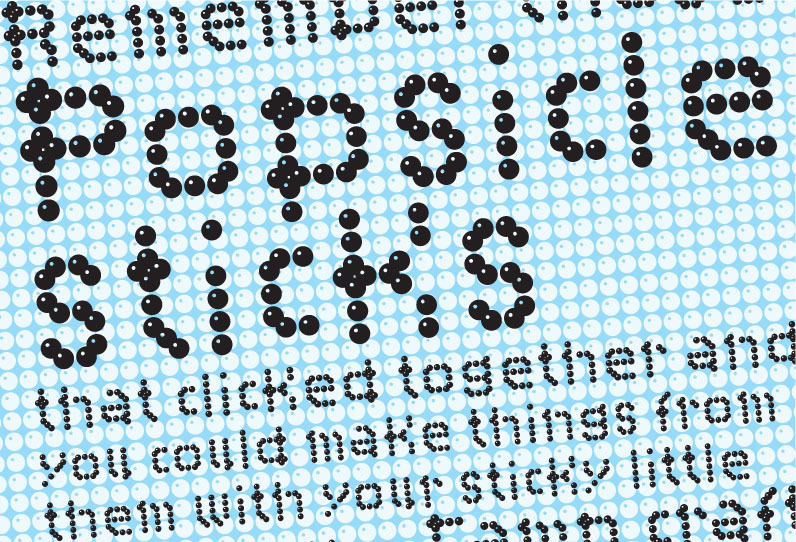
Campcraft Basic by Russell McGorman is a free decorative display font shaped from clusters of small round, button-like marks, with open shapes and a loose, toy-like silhouette. Its letters resemble simple beadwork or punched craft patterns.
A children's craft brand or summer camp could use it for badges, activity sheets, and cheerful packaging. The repeating circles also suit festival posters and game graphics, where the lettering can become part of a dotted illustration. Its strongest setting is playful outdoor or classroom material rooted in making, assembling, and hands-on fun.